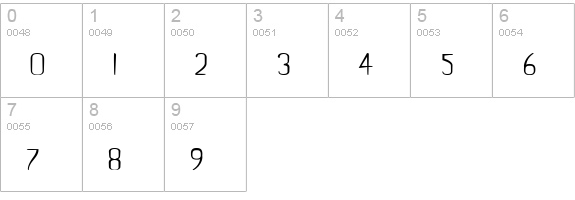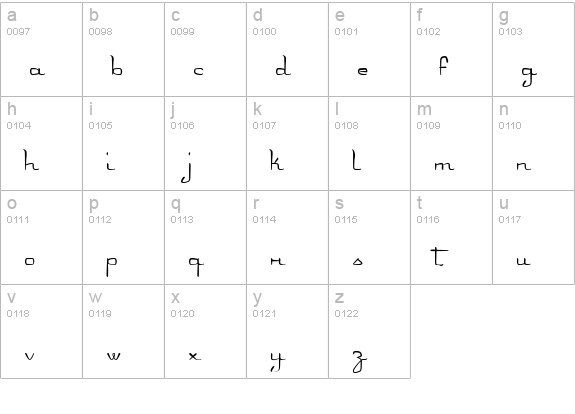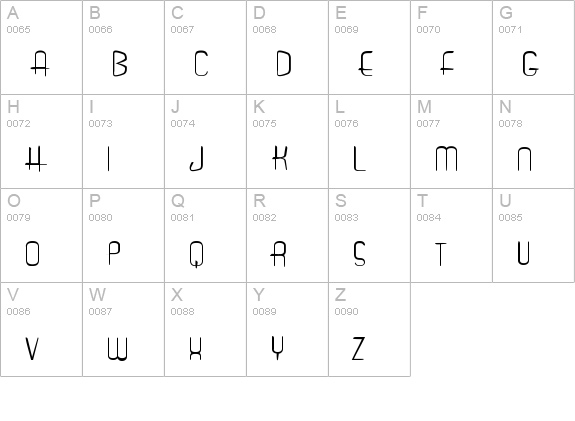
AlsMotorInn Font Details
Introducing AlsMotorInn font, a bold and stylish typeface perfect for adding a touch of vintage charm to your design projects. This versatile font exudes a retro vibe, making it ideal for posters, logos, labels, and more. With its unique character and distinctive appearance, AlsMotorInn font is sure to make your designs stand out. The best part? AlsMotorInn font is available for free download at FontsMarket.com. So go ahead and give your projects a dose of nostalgia with this eye-catching font. Whether you're working on a branding project or a creative campaign, AlsMotorInn font is the perfect choice to add that extra flair. Download it today and unleash your creativity with this one-of-a-kind typeface.